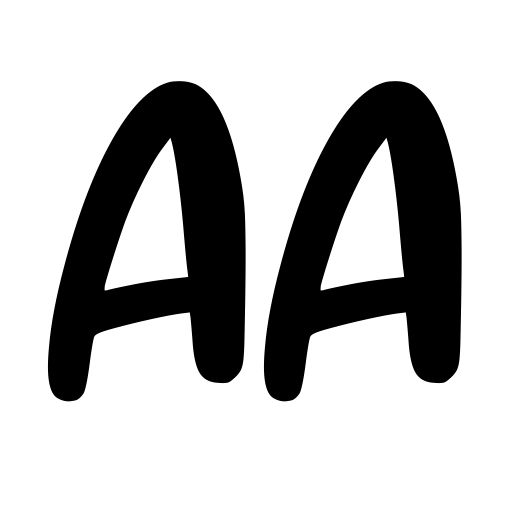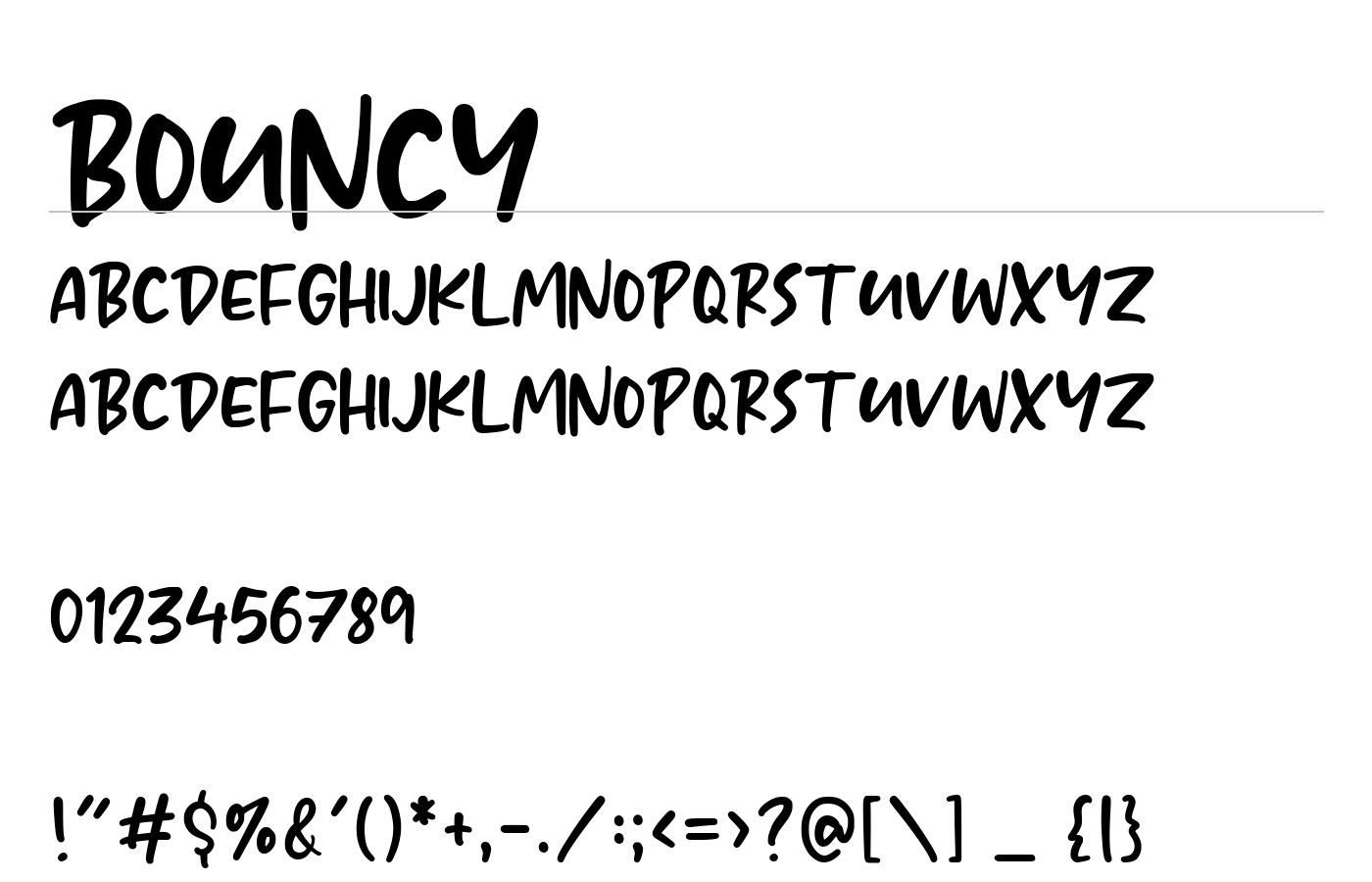
BOUNCY is a lively, handwritten sans serif font characterized by its playful, casual style and uneven letter heights that mimic natural handwriting. Its smooth, rounded strokes and slightly irregular shapes give it an inviting, friendly personality, making it perfect for informal designs, children’s content, or creative branding that seeks a personal touch. This font works well for logos, posters, and social media, where a warm and approachable feel is desired.
BOUNCY Font
About BOUNCY Font